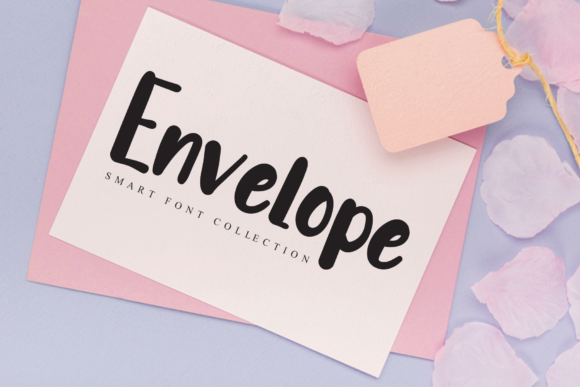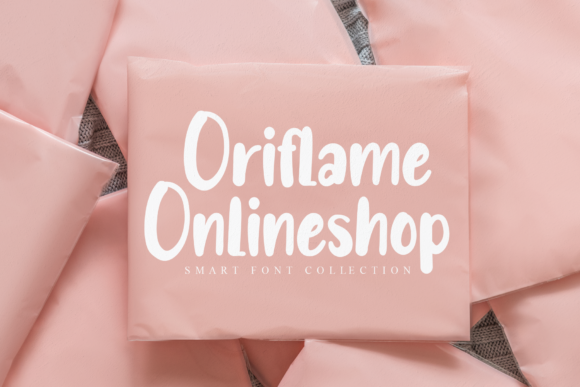
Hellobaby Font
db-ku.com - Script & Handwritten -- Hellobaby is a bold and cute script font. Add this chunky lettered font to your designs and notice how it makes them come alive!